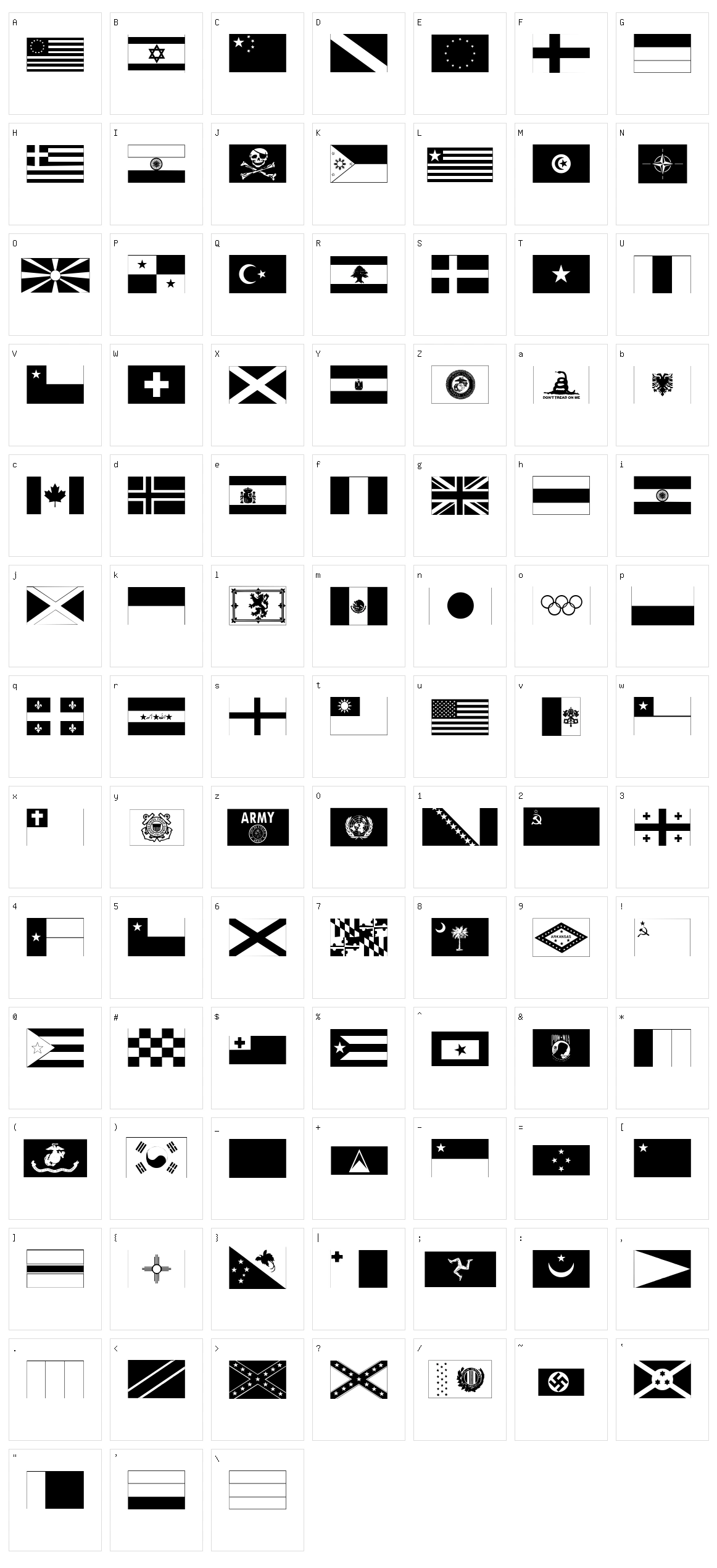
Raise Your Flag Truetype Font for Windows (version 1)
This is a dingbat font with over 90 dingbats of national, state, organizational and other distinctive flags.